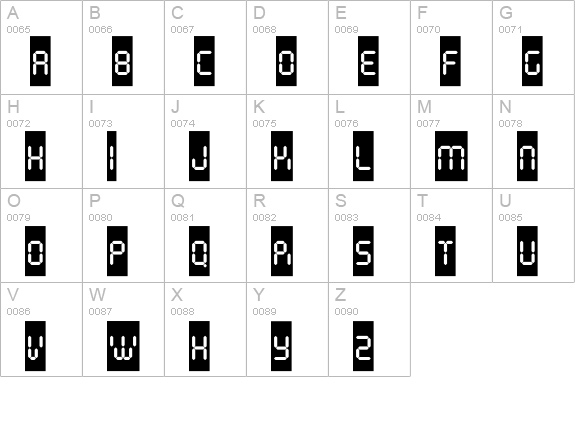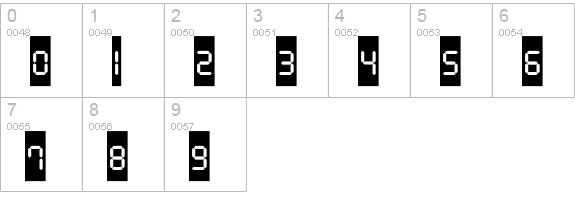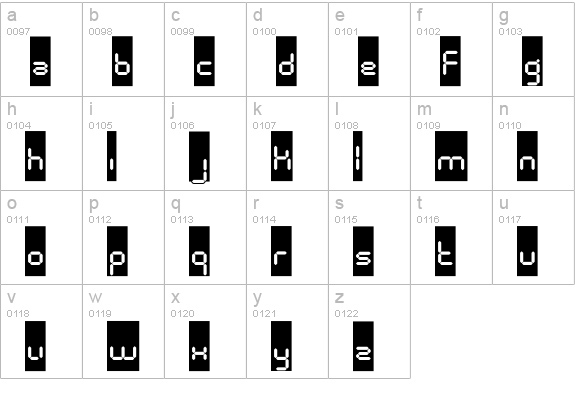
CalculusCameo Font Details
CalculusCameo font is a modern and elegant typeface that exudes sophistication and creativity. With its unique blend of sleek lines and subtle curves, this font is perfect for adding a touch of class to any design project. The versatility of CalculusCameo makes it suitable for various applications, from branding to editorial design. The best part? CalculusCameo is completely free to download at FontsMarket.com. This means you can elevate your projects without breaking the bank. Don't miss out on the opportunity to enhance your designs with this stunning font. Download CalculusCameo today and let your creativity soar!